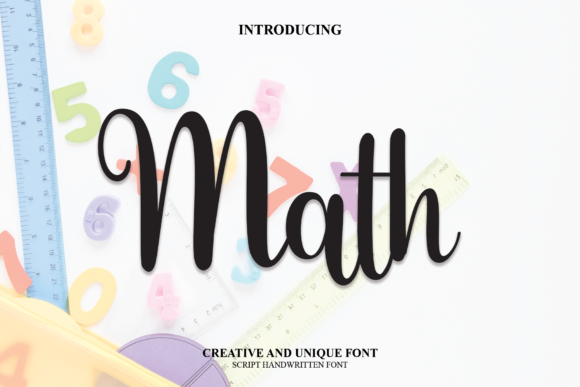
About Math Font
Introducing a sweet, romantic, and beautiful script font that embodies elegance with beautiful curves in each letter. This font not only captivates visually but also incorporates PUA coding, ensuring effortless access to a wide array of glyphs and graceful sweeps for easy customization.
The sweet, romantic, and beautiful characteristics of this script font make it an ideal choice for projects that demand a touch of sophistication and charm. Whether you’re crafting enchanting wedding invitations, expressing tender sentiments in love notes, or infusing any creative piece with a sense of timeless beauty, the delicate curves of each letter enhance the overall allure, creating an atmosphere of romantic elegance.
A standout feature of this font is its PUA coding, providing users with a user-friendly experience for seamless exploration of its extensive character set. With easy access to all the glyphs and sweeps, designers of any skill level can infuse their projects with unique and personalized touches, adding a bespoke feel to their work.
The beautiful curves present in each letter contribute to the font’s overall aesthetic, making it a versatile choice for a wide range of creative applications. Whether applied to product packaging, branding, or social media graphics, the fluidity of the script imparts a sense of sophistication and beauty to the text, enhancing the overall visual impact.
This font’s combination of sweetness, romance, and beauty makes it particularly well-suited for creating designs that exude a refined and captivating presence. From invitations to branding and beyond, its expressive nature adds character and distinction to your projects. The harmonious balance between these elements ensures that this font stands out in various creative contexts.
In summary, this sweet, romantic, and beautiful script font, with its beautiful curves and PUA coding, offers a perfect blend of visual appeal and functionality. It invites designers to infuse their projects with creativity and a touch of timeless elegance, making it an excellent choice for those seeking a versatile and expressive typographic solution.